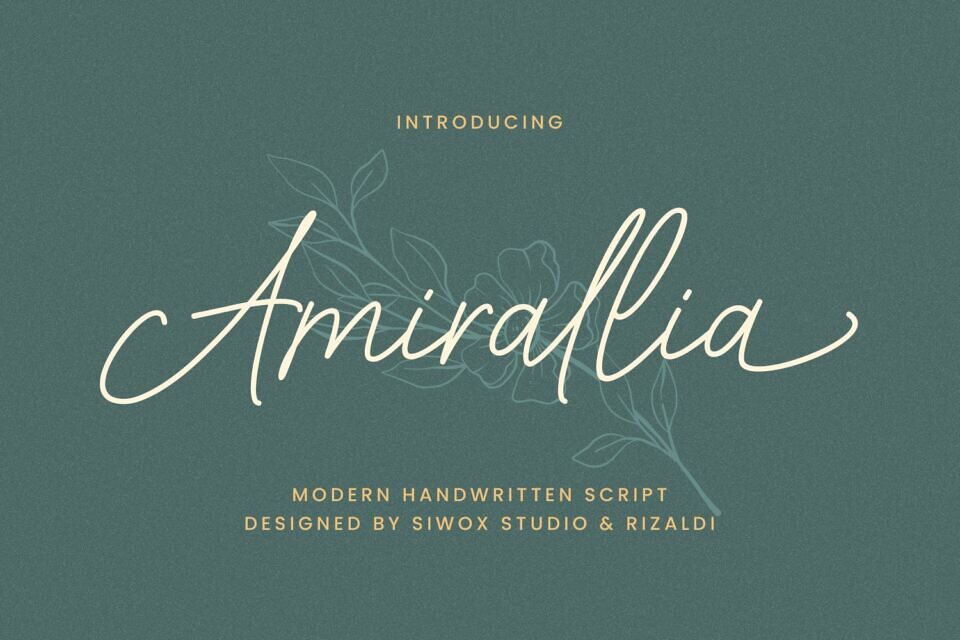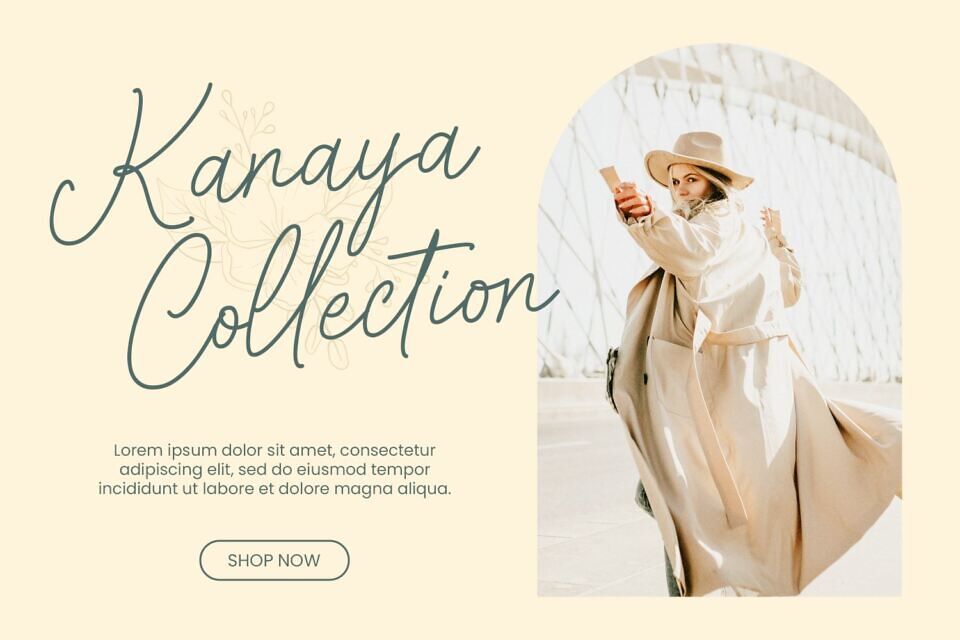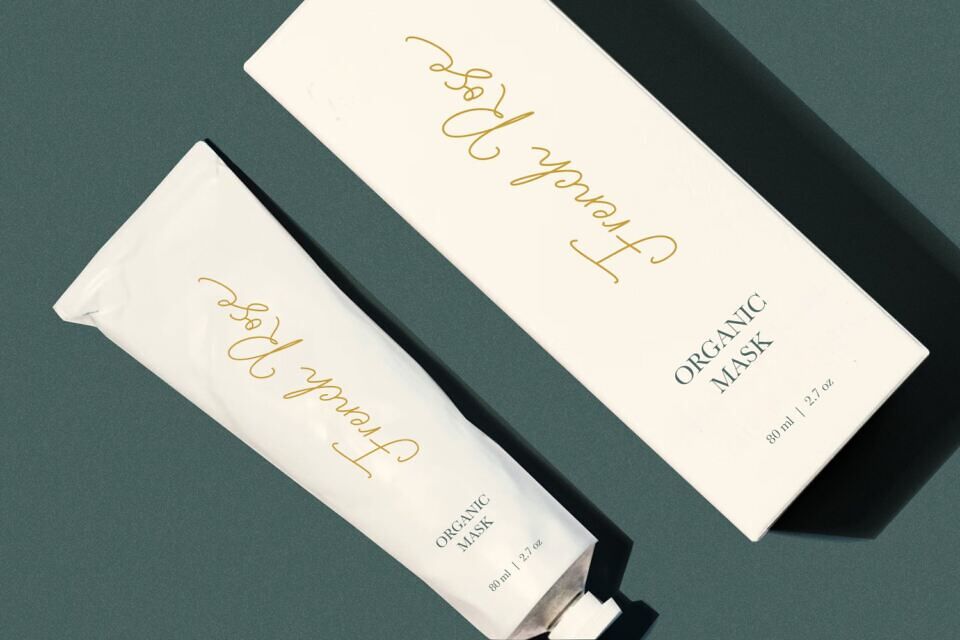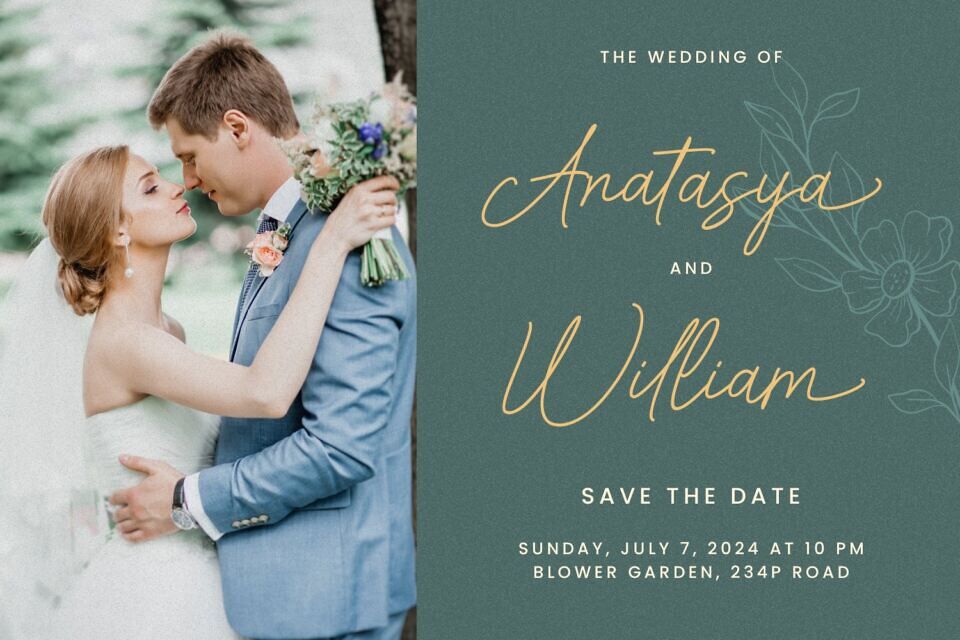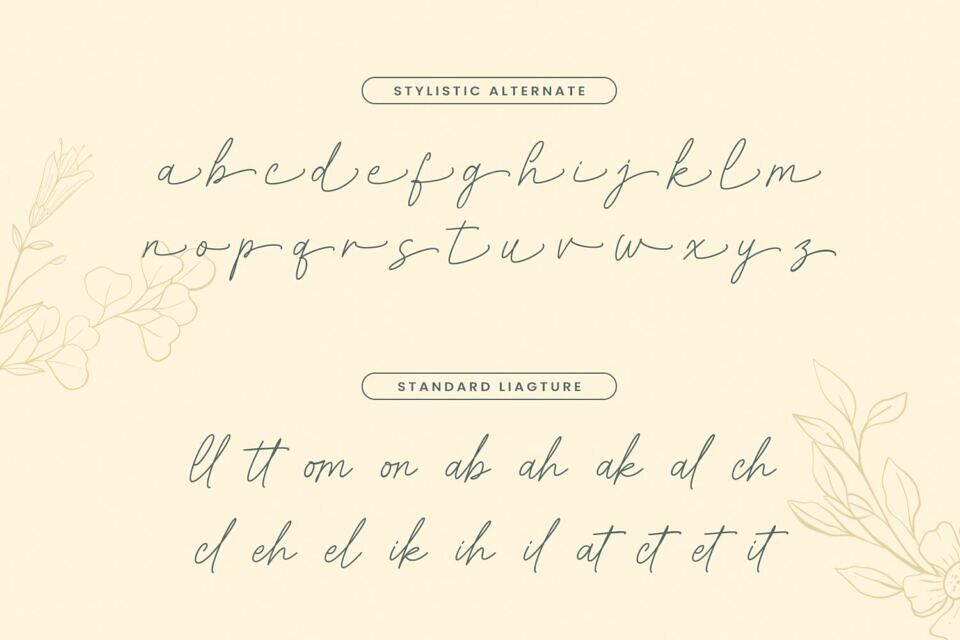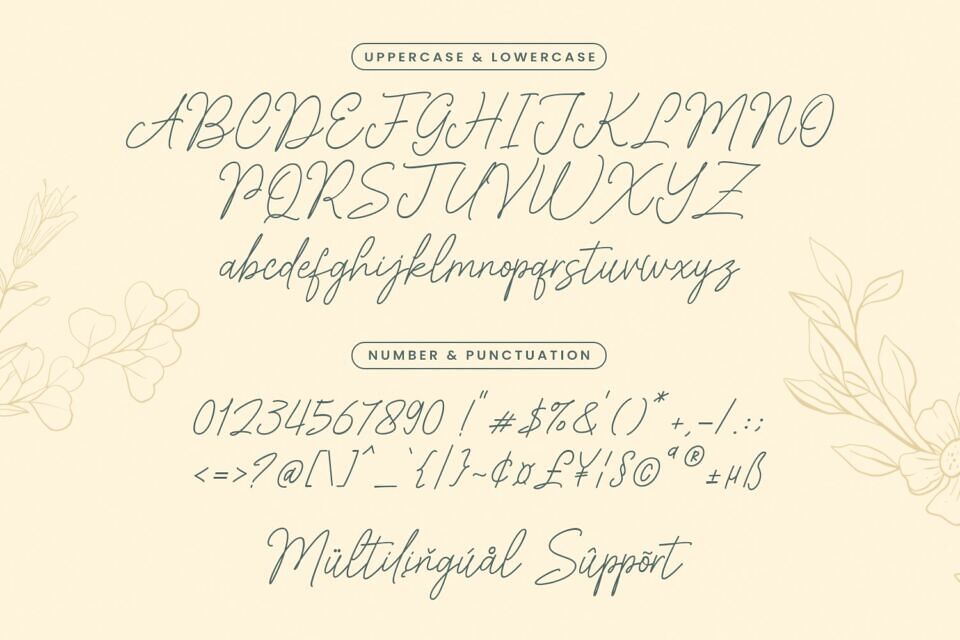
Unveiling Amirallia, a distinctive monoline script font brimming with personality and subtle nuances. It beautifully merges the crisp elegance associated with monoline fonts and the creative flair inherent to a handwritten script.
Amirallia is PUA-encoded, providing effortless accessibility to all glyphs and elegant swashes. It comes fully featured, boasting uppercase & lowercase numbers, symbols, and punctuations. The stylistic alternate discretionary ligatures set this font apart, ensuring you can express your design ideas in multiple languages with ease.